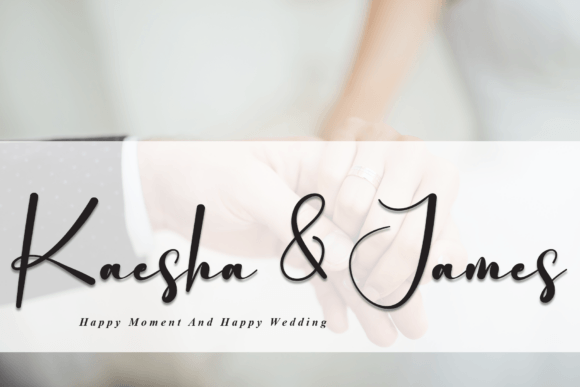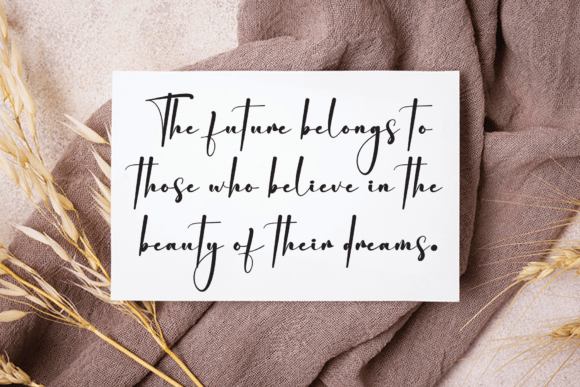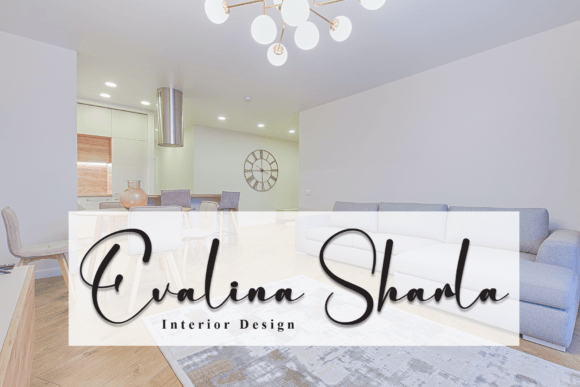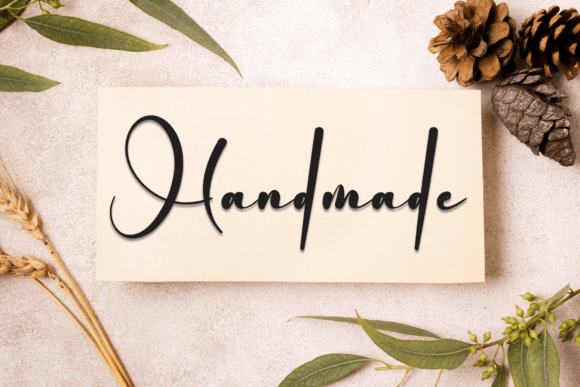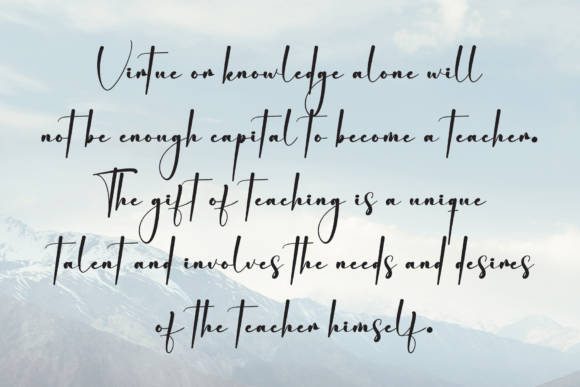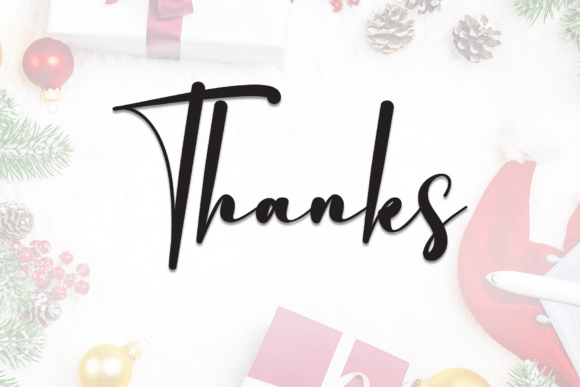
Unwrapping the Magic of the Holiday Season with Holiday Christmas Font
There’s something special about curling up with a warm cup of hot chocolate, surrounded by twinkling lights, and watching the snowfall gently outside the window. It’s a moment when creativity flows freely, and ideas start to sparkle like the stars in the night sky. And what better way to capture that magic than with the perfect font?
Meet the Holiday Christmas Font, a beautifully crafted script font designed to evoke the essence of the holiday season. With its elegant touch and festive feel, this font is perfect for turning your creative ideas into stunning works of art. Whether you’re a designer, a crafter, or a social media enthusiast, the Holiday Christmas Font is an invaluable tool that will add a touch of sophistication and whimsy to your projects.
Holiday Christmas Font Key Features
- Font Family: Holiday Christmas Font is a unique, hand-drawn font designed specifically for the holiday season. It features intricate details and ornaments, making it perfect for Christmas-themed designs.
- Unique Characteristics: Holiday Christmas Font features a mix of traditional and modern elements, including ornaments, garlands, and festive icons, making it a standout choice for holiday designs.
Designer Review: Holiday Christmas Font
The Holiday Christmas Font is a festive and playful typeface, perfect for adding a touch of holiday cheer to your designs. ✨ It features bold, bright letters and intricate details that evoke a sense of nostalgia and magic. ✨ The font is well-suited for holiday-themed projects, such as greeting cards, gift tags, and social media posts.
One of the standout features of this font is its versatility. ✨ It can be used in a variety of contexts, from modern and sleek to traditional and classic. ✨ The font’s flexibility makes it a great choice for designers who want to create a unique and eye-catching design without committing to a specific style.
- ⚠️ The font may not be suitable for large blocks of text, as it can become overwhelming and difficult to read.
- ⚠️ The intricate details and ornaments can be distracting if used excessively, so it’s best to use them sparingly.
- ⚠️ The font may not be suitable for all types of projects, such as business reports or technical documentation, due to its festive and playful nature.
Overall, the Holiday Christmas Font is a fun and festive typeface that adds a touch of holiday magic to any design. While it may have some limitations, it’s a great choice for designers who want to create a unique and eye-catching holiday design.
The Holiday Christmas Font is perfect for:
- Holiday greeting cards and invitations
- Festive social media graphics
- Custom holiday gift tags and cards
- Holiday party invitations and decorations
With the Holiday Christmas Font, you can add a touch of festive cheer to your holiday designs and make them stand out from the rest.